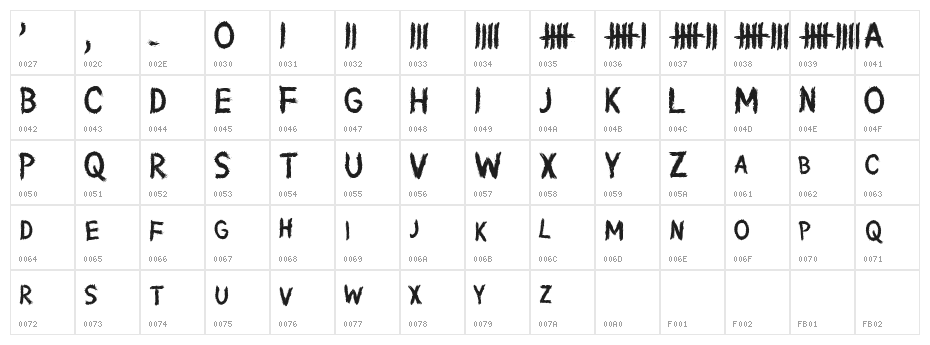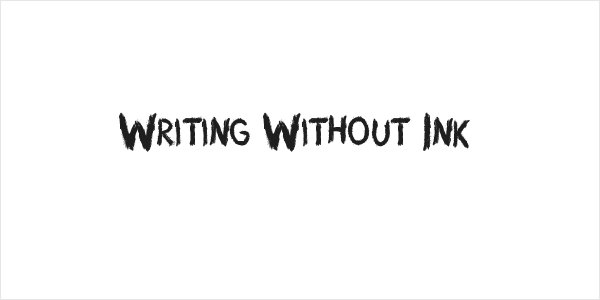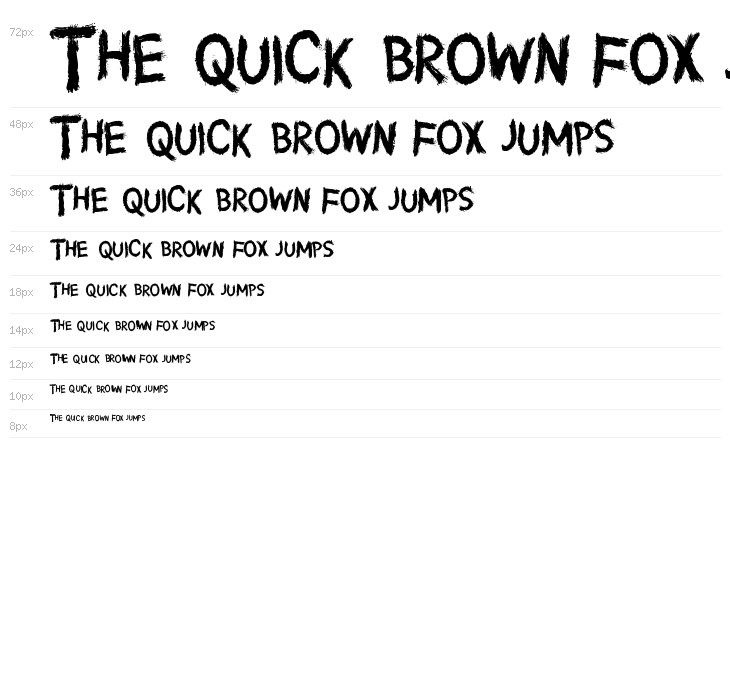
Writing Without Ink Font
Writing Without Ink Description
This font features a rugged, hand-drawn appearance with a brush-like texture that gives it a dynamic and energetic feel. The uppercase and lowercase letters maintain a consistent style, with each character exhibiting a slightly irregular edge that enhances its organic look. The numbers and special characters follow the same aesthetic, making the font cohesive across all elements. The strokes are bold and prominent, contributing to a high contrast between the thick and thin areas of each letter. This font is ideal for projects that require a bold statement or an artistic touch, such as posters, album covers, or branding materials that aim to capture attention with a raw and expressive style.
| Proposed Projects | Ideal for posters, album covers, branding materials, and artistic projects requiring a bold statement. |